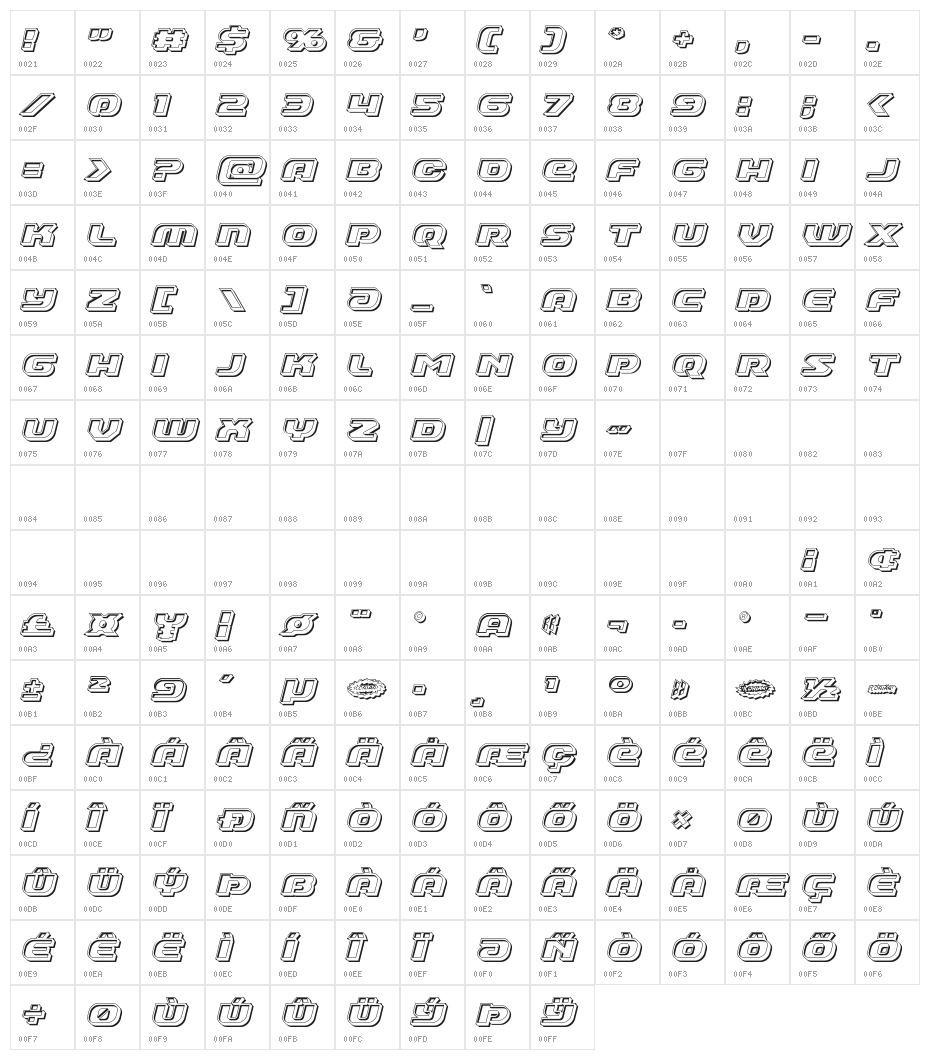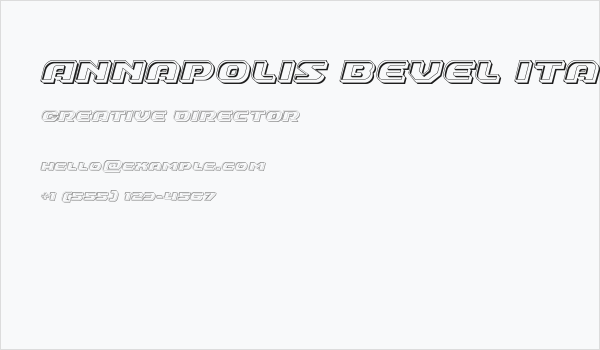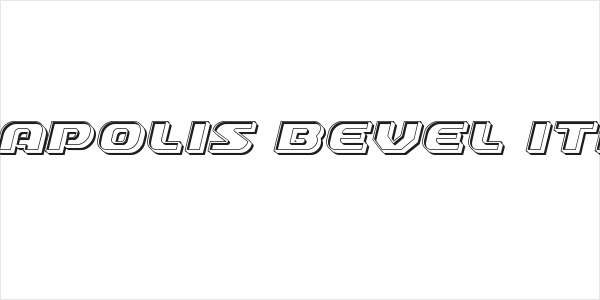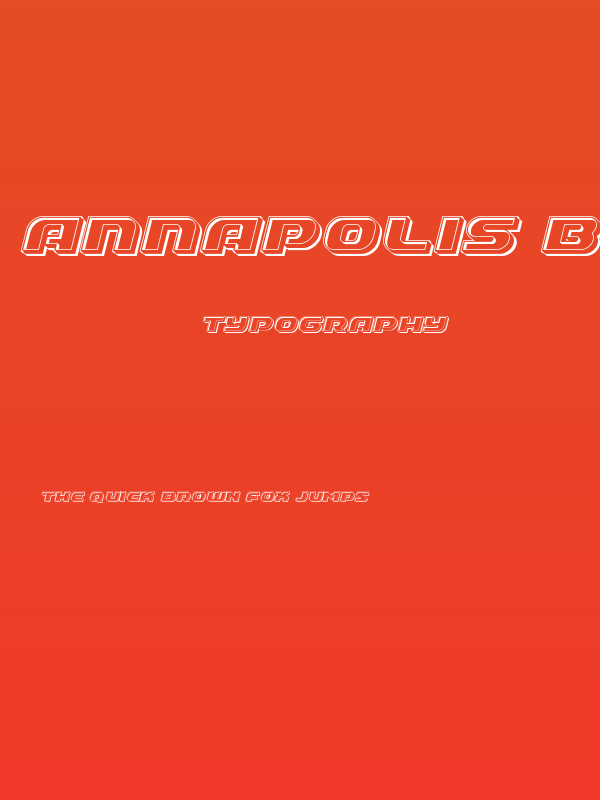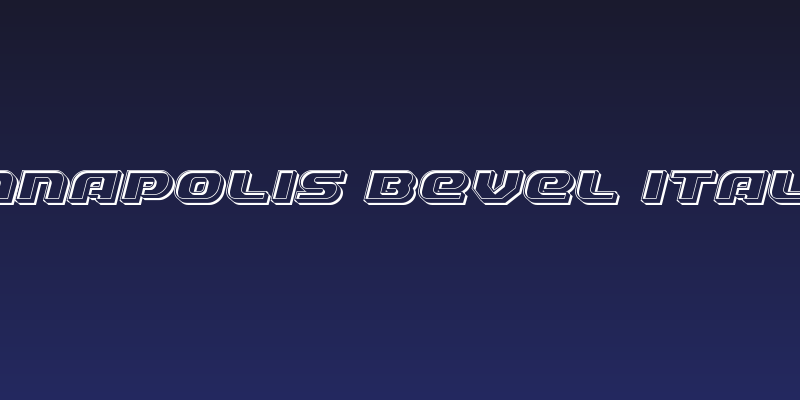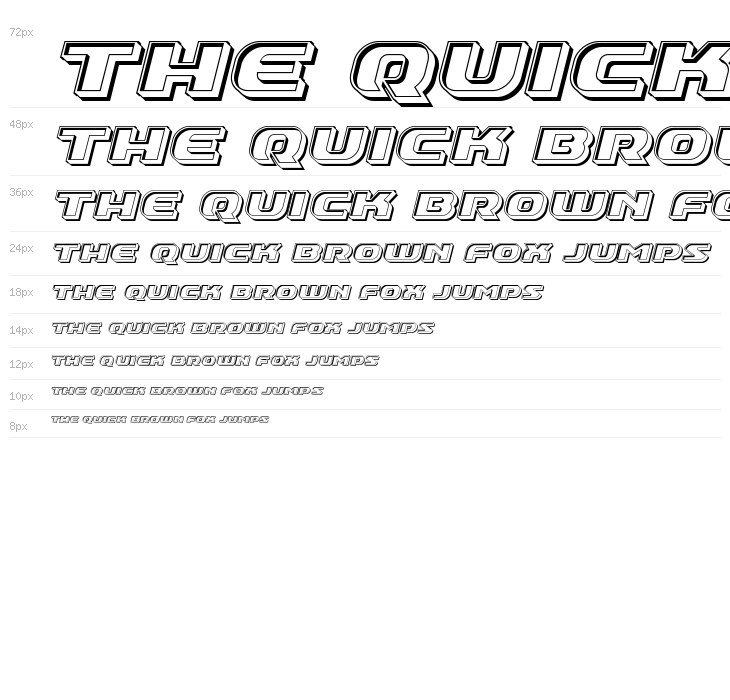
Annapolis Bevel Italic Font
Annapolis Bevel Italic Description
This font features a bold, three-dimensional appearance with beveled edges that create a striking visual effect. The characters are italicized, adding a dynamic and forward-leaning style. The font is highly decorative, with a strong emphasis on geometric shapes and clean lines. Each letter is outlined, enhancing the 3D effect and providing a sense of depth. The uppercase and lowercase letters maintain a consistent style, while the numerals and special characters complement the overall aesthetic. This font is ideal for projects that require a bold and eye-catching design.